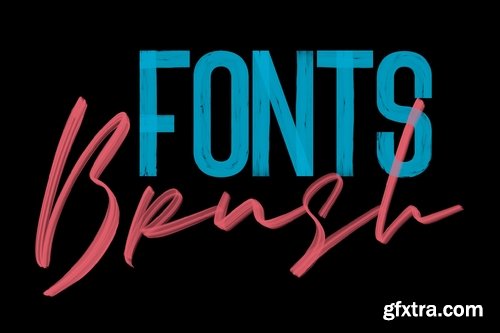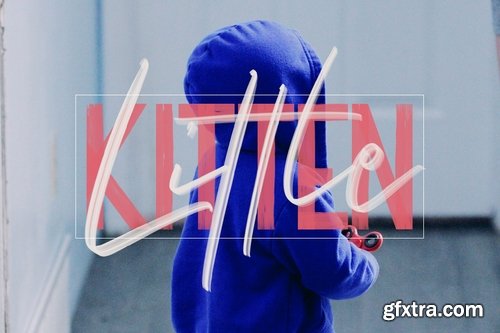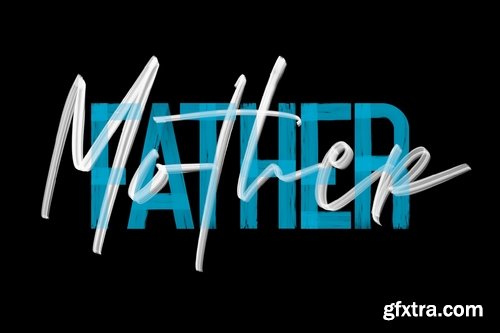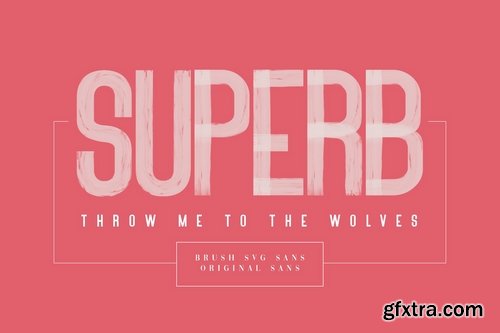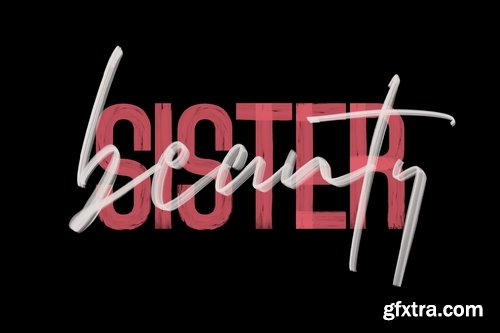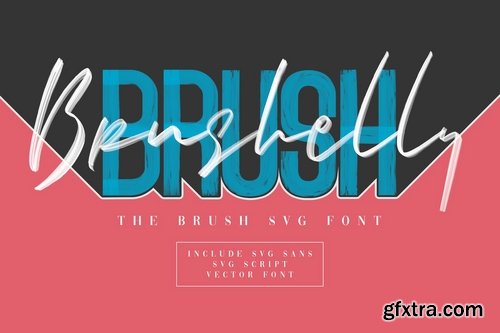
CM - Brushelly SVG Brush Font 3356240
Give your designs an authentic brush handcrafted feel. "Brushelly SVG Brush Font" is perfectly suited to signature, stationery, logo, typography quotes, magazine or book cover, website header, flyer, clothing, branding, packaging design and more.